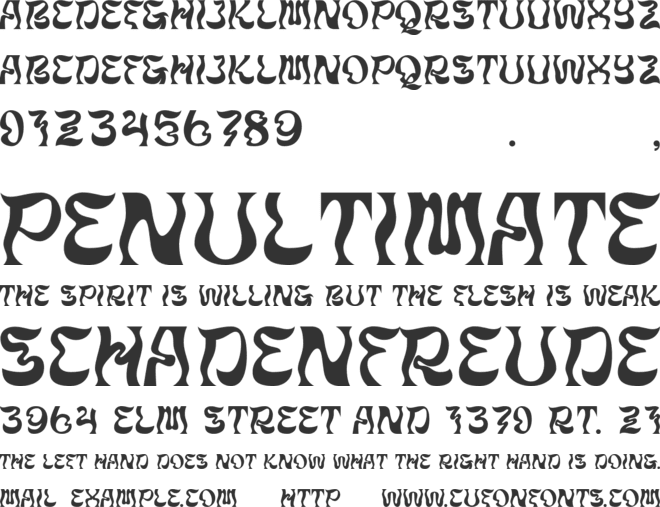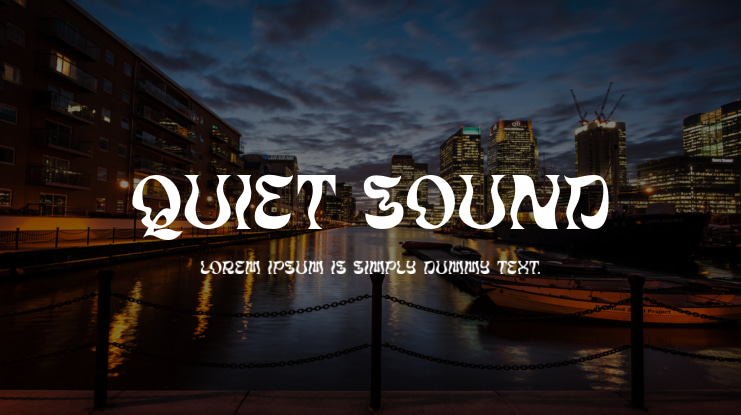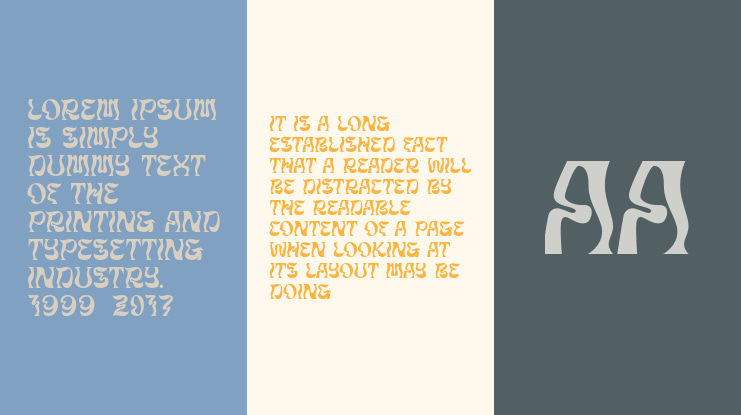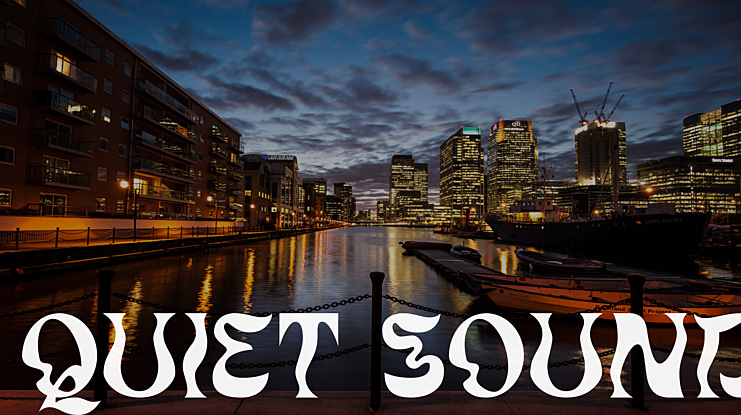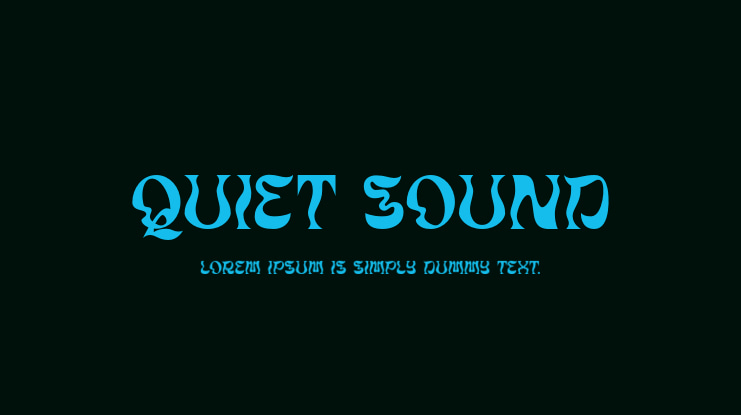
Quiet Sound Font
Rian Dryana
Quiet sound font is inspired by a scream hidden every night of silence but hard in the head, a mixed depression and compulsion. This font I created is meaningful & very versatile, it goes well with various designs, elevating them to the highest level. Add this font to your favorite creative ideas and see the results!